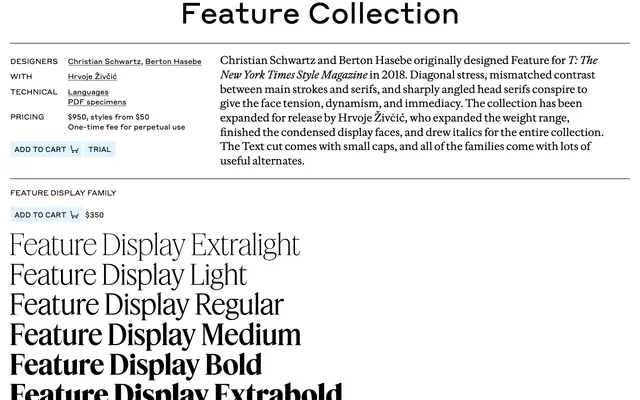
Feature
Commercial Type · Christian Schwartz, Berton Hasebe, Hrvoje Zivcic · 2018
A tense, contemporary editorial serif from Commercial Type, first cut for T Magazine and expanded into a five-width fashion and feature system.
A contemporary serif by Christian Schwartz and Berton Hasebe, originally drawn in 2018 for T: The New York Times Style Magazine and later expanded by Hrvoje Zivcic. Diagonal stress, mismatched contrast between main strokes and serifs, and sharply angled head serifs give Feature its sense of tension and dynamism. The collection now runs from Text up through Deck and Display, plus condensed cuts, with matching italics across the whole range and small caps in Text. Reach for it on editorial covers, fashion mastheads and feature openers that want immediacy without slipping into pastiche.
Commercial Type frames Feature as an editorial contemporary serif first drawn for T: The New York Times Style Magazine, with diagonal stress, mismatched contrast between main strokes and serifs, and sharply angled head serifs giving the face tension and immediacy.